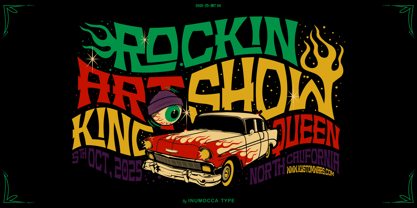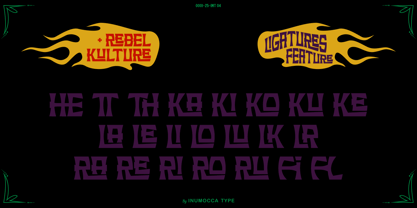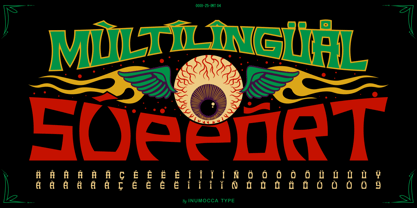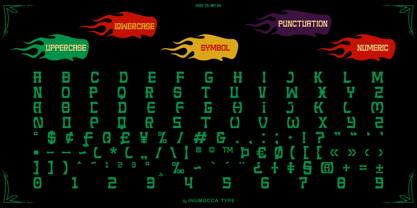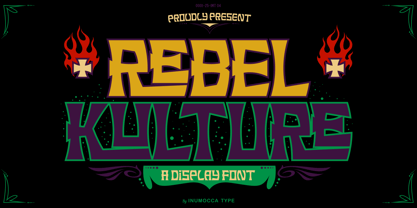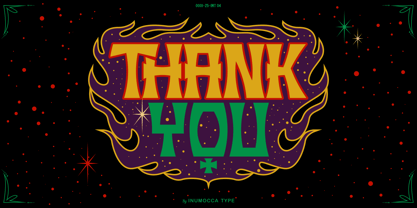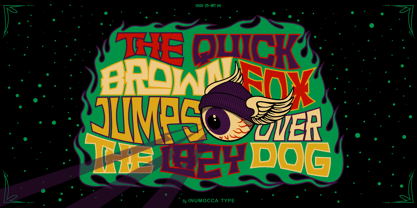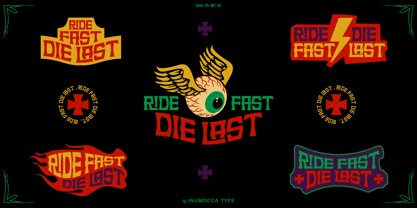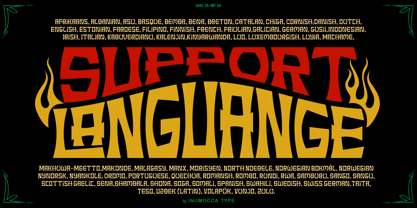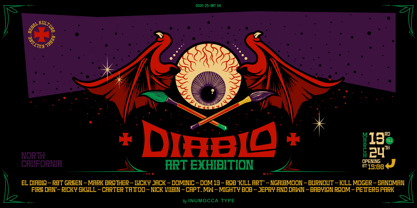
Rebel Kulture Outline
by Inumocca
The Rebel Kulture Outline Font Family was designed by Inu Mocca and published by Inumocca. Rebel Kulture Outline contains 4 styles and family package options. More about this family
Rebel Kulture is A Display Font, inspired by Kustom Kulture art and Cultural movement that emerged era 60s in California Focuses on Unique Modification and Customization of vehicle especially cars and motorbikes and the lifestyle . i present it in shape and characteristic for make Profesional Your Logos, Branding, Headline, Badges, Body of text, packaging design, poster for event, lettering, you can adding Flames, Stripes and other patterns, because visual appeal is essential. - Unique glyphs - Multilingual Characters - UPPERCASE - Lowercase - Numeric - Symbol - Punctuation Character - PUA encoded - Stylistic Alternates (ss01) - Ligatures inumocca type